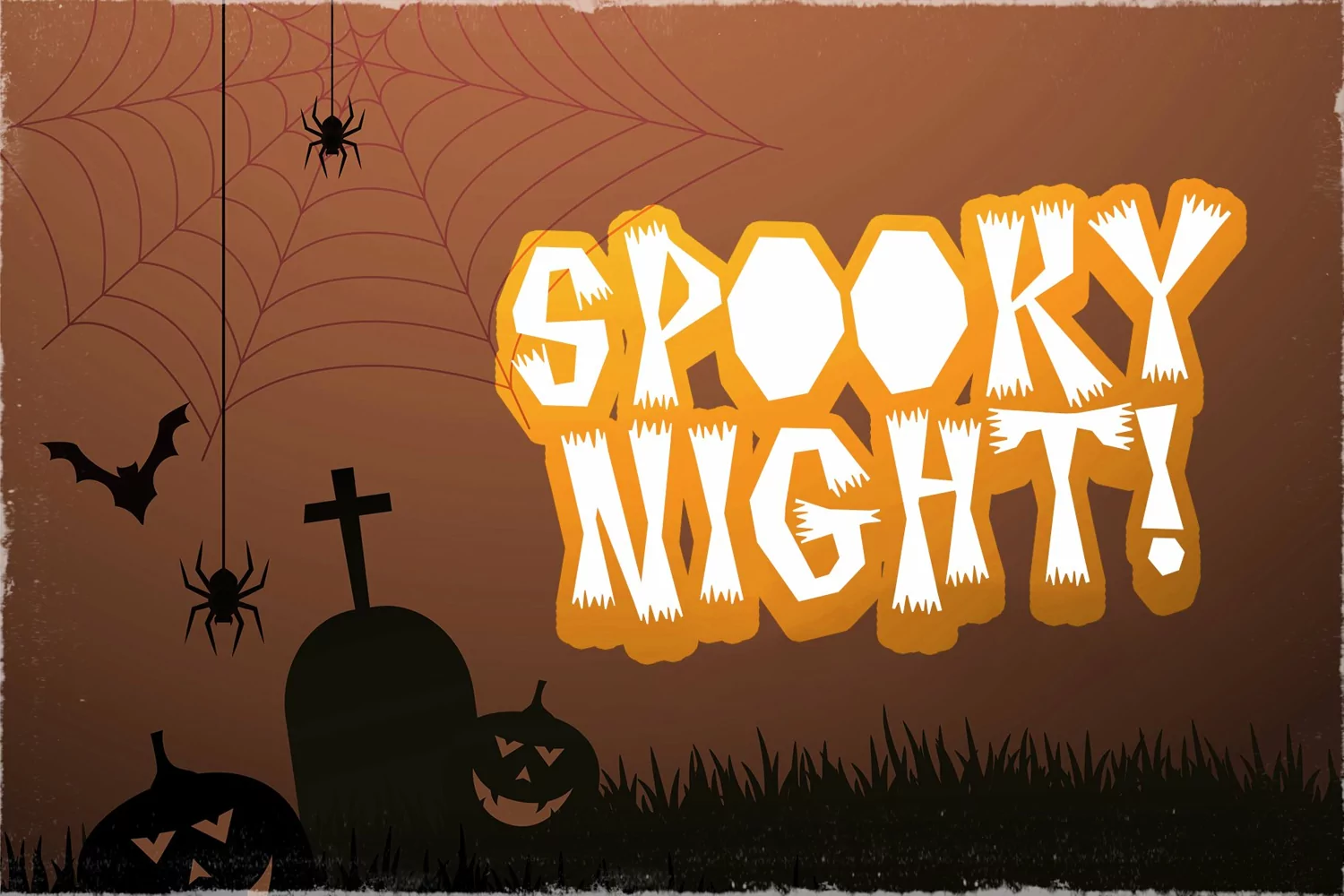
Tantula is a decorative font with a clear style and dramatic movement. It is great for your next creative project such as Logotype, Letterhead, Poster, Design this font is great for your creative projects such as watermark on photography, and perfect for logos & branding, printed quotes, cards, headers, advertisements, stationery, label or product packaging, special events or anything you need.